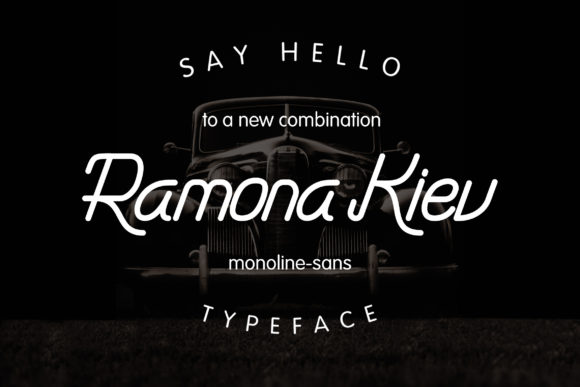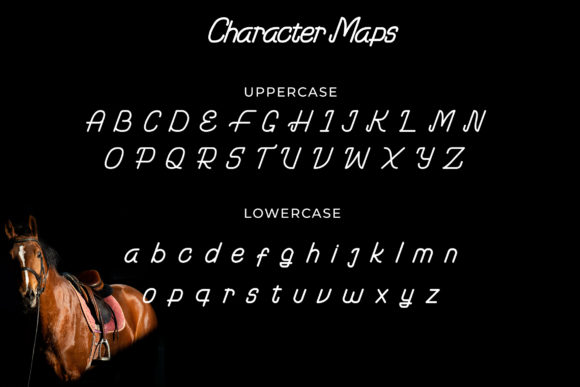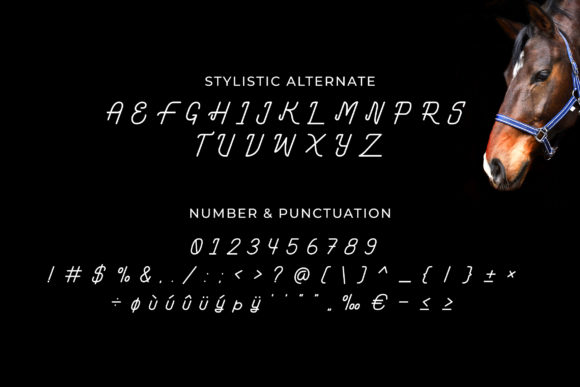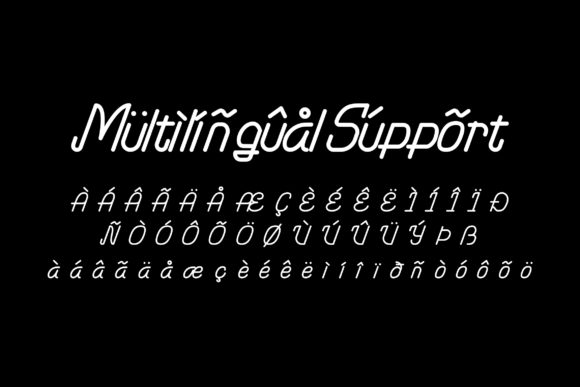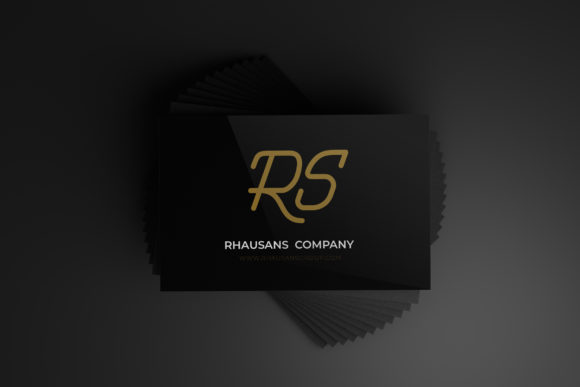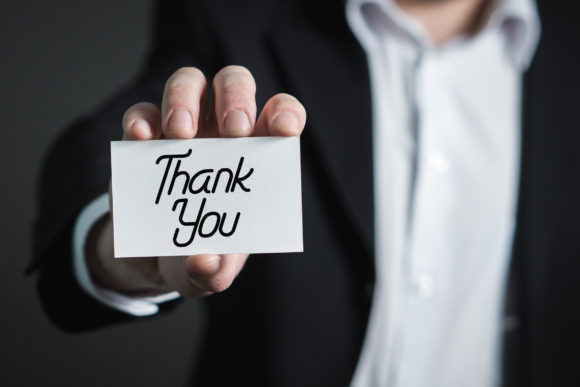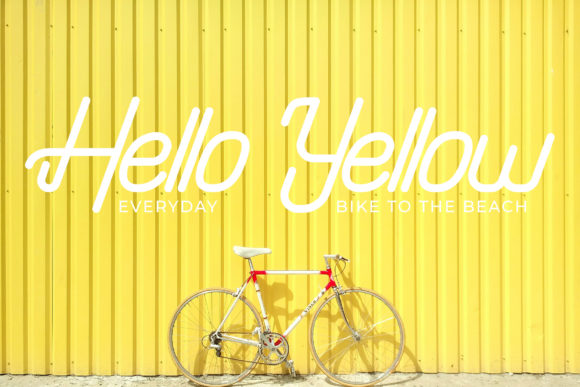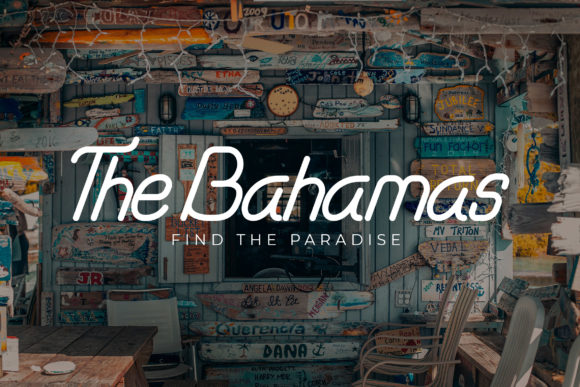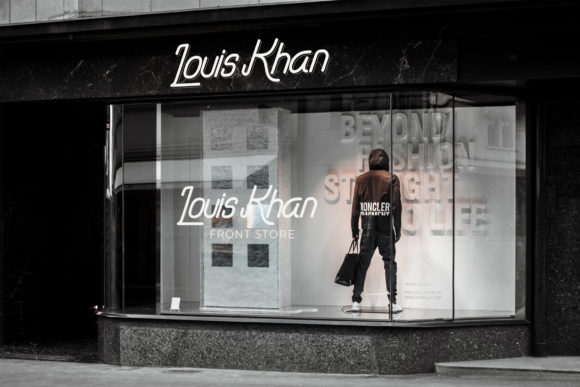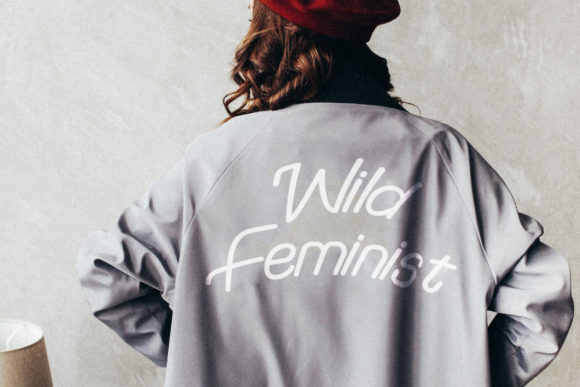
Ramona Kiev Font
About Ramona Kiev Font
Ramona Kiev is a magical handwritten font carefully created with a touch of elegance. This is a beautiful combination of timeless elegance and authentic calligraphy. Fall in love with its authentic feel and use it to create gorgeous wedding invitations, beautiful stationary art, eye-catching social media posts, and cute greeting cards.